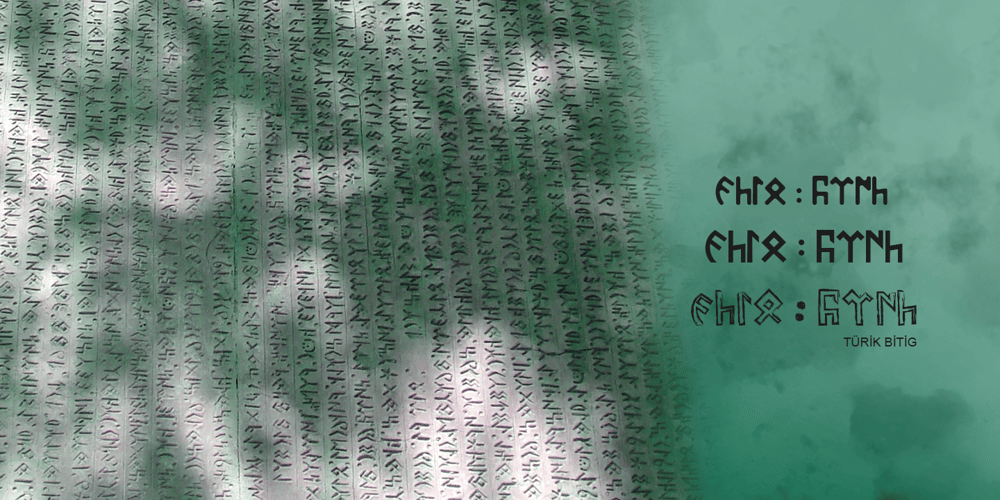
Orkhon
Orkhon font
Orkhon Font Family was designed by Seda Ekin and published by Plastikdna. Orkhon contains 4 styles and family package options. The Old Turkic script (also known as variously Göktürk script, Orkhon script, Orkhon-Yenisey script) is the alphabet used by the Göktürks and other early Turkic khanates during the 8th to 10th centuries to record the Old Turkic language. Words were usually written from right to left. According to some sources, Orkhon script is derived from variants of the Aramaic alphabet, in particular via the Pahlavi and Sogdian alphabets of Persia, or possibly via Kharosthi used to write Sanskrit The texts are mostly epitaphs (official or private), but there are also graffiti and a handful of short inscriptions found on archaeological artifacts, including a number of bronze mirrors.